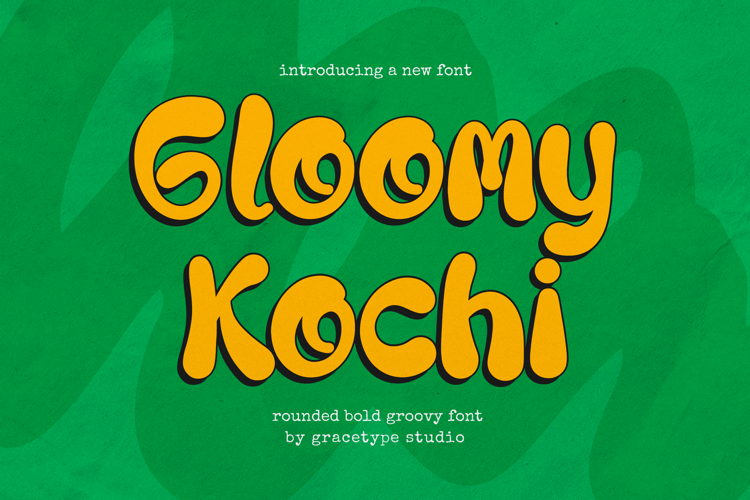
Gloomy Kochi Font
Gloomy Kochi | Rounded Bold Groovy, is suitable for any projects such as: logos, branding projects, homeware designs, product packaging, mugs, quotes, posters, shopping bags, t-shirts, book covers, name card, invitation cards, greeting cards, label, photography, watermark, special events, and all your other lovely projects that need a hand drawn taste.